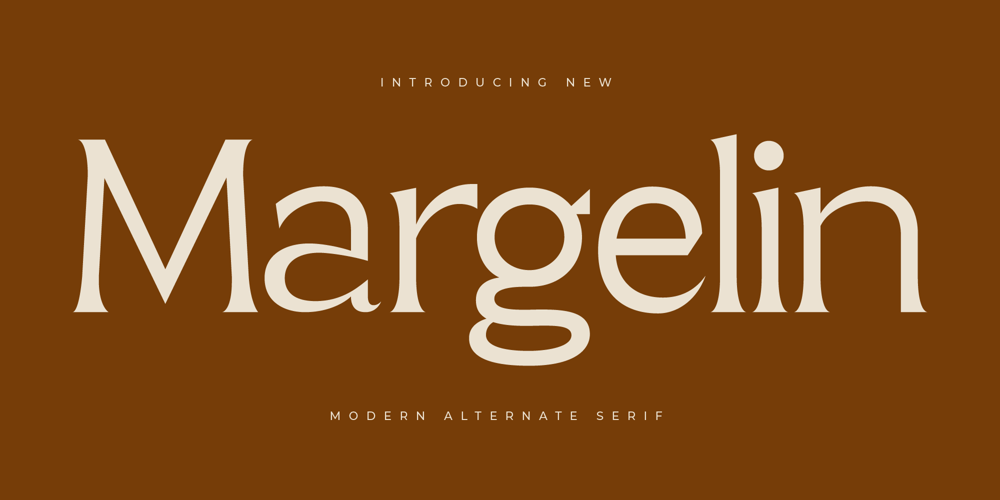
Margelin
Margelin font
Margelin Font Family was designed by Heru Utama Putra and published by Letterena Studios. Margelin contains 2 styles and family package options. Margelin, a stylish serif font, captivates with its unique design, blending modern aesthetics with timeless sophistication. The distinctive serifs and graceful letterforms exude a sense of refinement, making it an ideal choice for projects that demand a touch of sophistication and contemporary elegance.